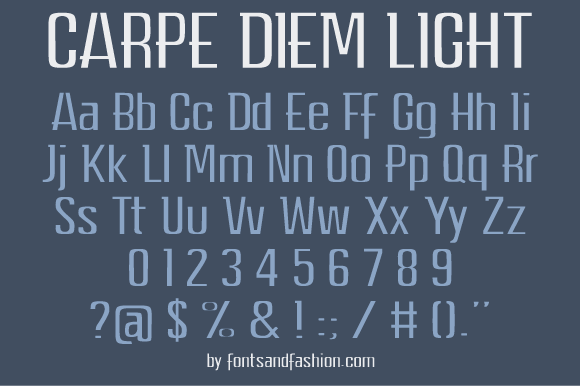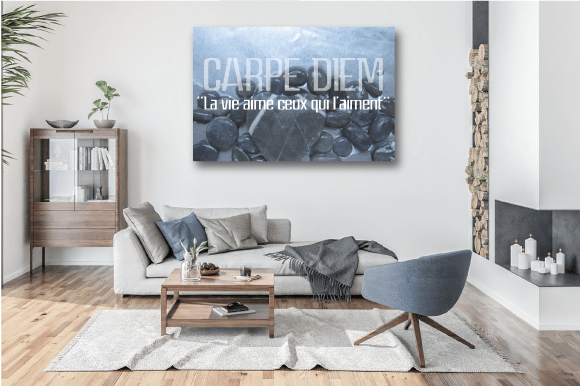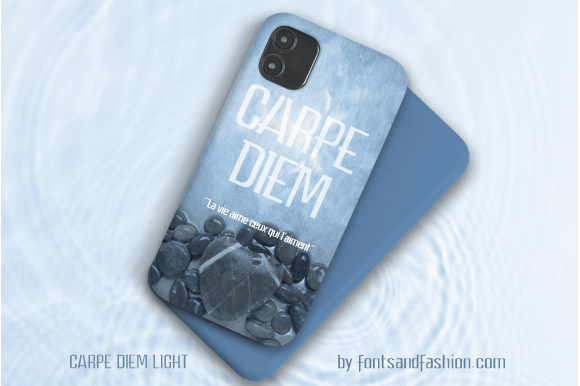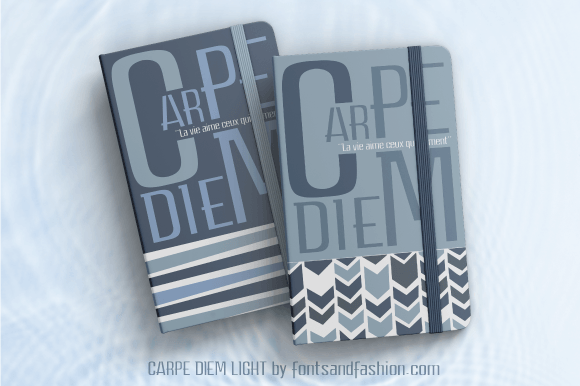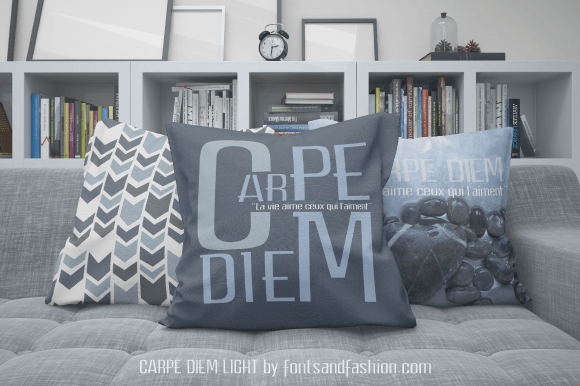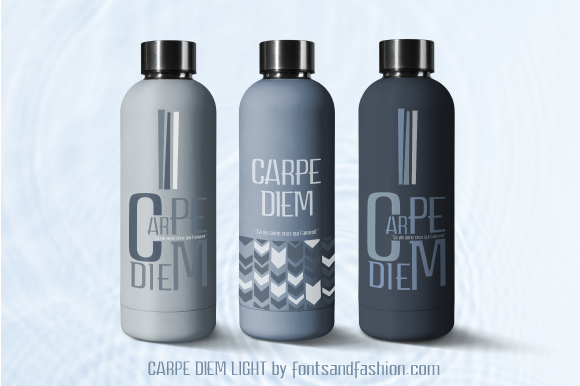
The Moment That Inspired a New Era of Typography
Have you ever found yourself sitting at your desk, staring at a blank page, waiting for the perfect idea to strike? For designers, those moments of creative clarity can be the spark that ignites an entire project. It’s the thrill of bringing a concept to life, of giving shape to a vision, and of crafting a message that resonates with others.
For those moments, you need a font that’s as versatile as it is elegant. Enter the Carpe Diem Light Font, a masterclass in minimalist design that’s perfect for creating bespoke brand marks, labels, and business cards. With its lean lines and high readability, this font is an invaluable tool for designers looking to elevate their work and make a lasting impression.
Whether you’re working on a magazine layout or a restaurant menu, the Carpe Diem Light Font is the perfect choice for designers who crave a touch of sophistication and style.
Carpe Diem Light Font Key Features
- Font Family: Carpe Diem Light, a light and elegant sans-serif font.
- Unique Characteristic: Carpe Diem Light features a distinctive, modern design with subtle rounded edges, giving it a friendly and approachable feel.
Carpe Diem Light Font Review
When I first laid eyes on the Carpe Diem Light Font, I was immediately drawn to its ✨ elegant and sophisticated feel. The font is perfect for designers looking to add a touch of refinement to their projects. The light weight gives it a delicate and airy quality that’s hard to resist.
Here are some of the things I like about the font:
- ✨ Versatile: Carpe Diem Light can be used for a wide range of projects, from branding to advertising to editorial content.
- ✨ Legible: Despite its light weight, the font is still easy to read, making it perfect for large blocks of text.
- ✨ Unique: The font’s distinctive style sets it apart from more generic sans-serif fonts.
- ⚠️ Limited character set: Carpe Diem Light may not include all the characters you need for certain languages or special symbols.
- ⚠️ Not suitable for very small text: While the font is legible at larger sizes, it may become difficult to read when used in very small sizes.
Overall, I think the Carpe Diem Light Font is a solid choice for designers looking for a sophisticated and elegant font. While it may have some limitations, its unique style and versatility make it a great addition to any project.
Tips for Getting the Most Out of the Carpe Diem Light Font
Use the Carpe Diem Light Font for headings and titles to add a touch of elegance and sophistication to your designs.
Pair the Carpe Diem Light Font with other fonts to create a unique and visually appealing typography.
Experiment with different font sizes and colors to create contrast and emphasis in your designs.
Use the Carpe Diem Light Font for:
Headings and titles in designs and presentations.
Business cards and stationery.